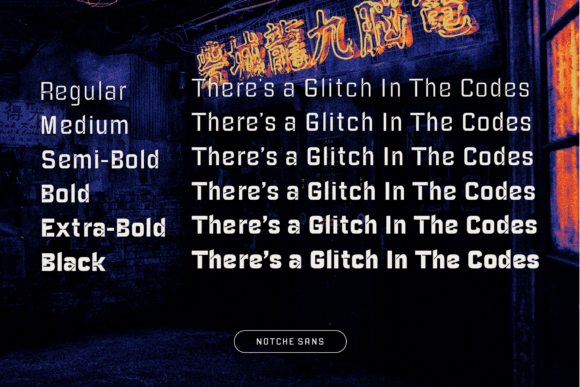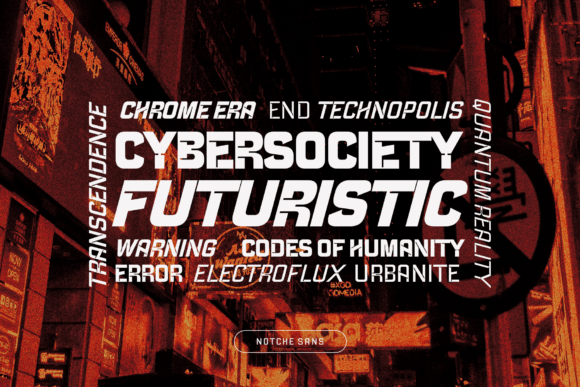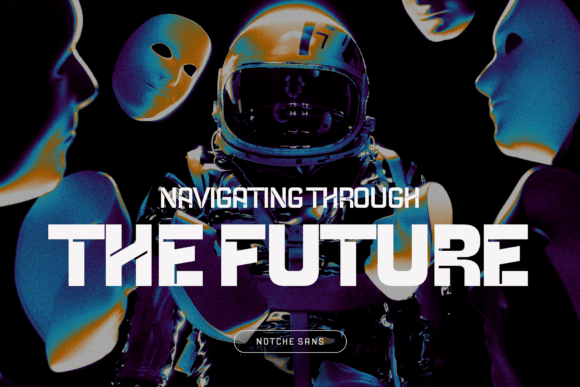
Introduction to Notche Font
Notche is a sleek and sophisticated sans-serif font with a touch of futuristic flair.
Its clean lines, ink trap details, and versatile styles make it a powerful tool for designers seeking to create modern and impactful designs Whether you’re crafting a sci-fi movie poster, designing a cutting-edge website, or simply adding a touch of sophistication to your next project, Notche is a font that deserves a closer look.